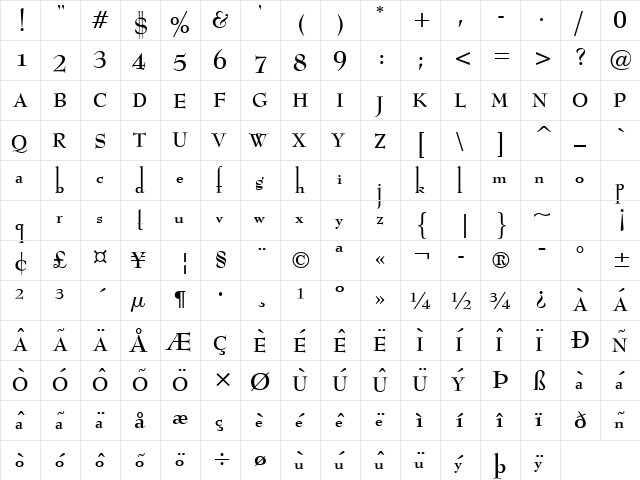
AB Majik Regular
Design Context for AB Majik Typeface
AB Majik takes a measured approach to typography — its balanced proportions and neutral character make it a reliable workhorse for both digital and print work.